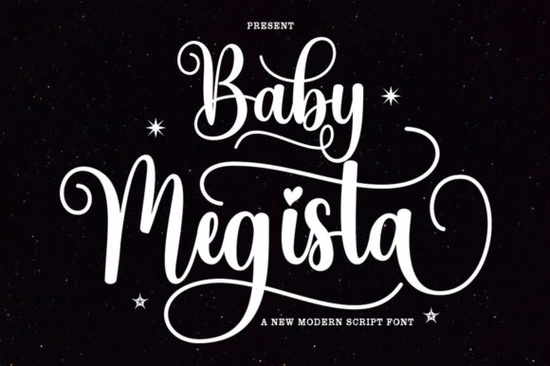
If you’re looking for a script font that feels both playful and polished, Baby Megista Font might be exactly what your next project needs. It’s got that hand-lettered charm with just enough sparkle to stand out whether you’re designing baby shower invites, custom nursery art, or branding for a small handmade business. The curves are smooth, the details are crisp, and it comes packed with extra glyphs and swashes that are easy to access thanks to PUA encoding.
One of the biggest perks of Baby Megista is how versatile it is. You don’t need to be a pro designer to make it look good pair it with something clean like Kids Sketch Hand for contrast, or let it shine solo on a simple tote bag or greeting card. Because it’s PUA encoded, all those fancy alternate letters and decorative tails show up right in your design software without needing extra plugins or font managers. That’s a real time-saver when you’re juggling multiple orders or rushing to meet a deadline.
It also scales nicely. Whether you’re printing tiny stickers or big wall decals, the strokes hold up without getting muddy. And if you’ve ever struggled with script fonts that feel too stiff or overly formal, this one has a relaxed rhythm that still feels intentional. Think of it as the font version of a handwritten note from a friend warm, personal, but still put-together.
If you’ve used Make A Note before, you’ll notice Baby Megista has a slightly bolder presence great for headlines or logos where you want to grab attention. It’s not as loose or sketchy as Catheline Pretty Meow, which leans into whimsy, but it’s far from corporate. It lands right in that sweet spot between casual and elegant.
For those who love boho aesthetics, pairing it with Boho Style as a secondary font creates nice visual texture one for headers, one for body text. Or if you’re working on family-themed projects, try mixing it with Dad Collections to balance softness with structure. The key is letting Baby Megista lead as the eye-catching element while keeping supporting fonts minimal.
One thing to note: because it’s a script font with connected letters, test your kerning carefully. Some word combinations might need manual spacing tweaks to avoid awkward overlaps especially in longer phrases. But that’s true of most display scripts, not just this one.
- Baby-related designs shower invites, milestone cards, onesies, nursery prints
- Small business branding boutique logos, café menus, handmade product labels
- Social media graphics quotes, announcements, seasonal promotions
- Personalized gifts mugs, keychains, tote bags with names or short messages
It’s less ideal for long paragraphs or body text save it for headlines, titles, or accent words. And while it’s gender-neutral in style, its soft curves naturally lean toward feminine or child-friendly themes unless paired with more structured fonts to balance it out.
- Use the swashes sparingly. They’re gorgeous, but too many can clutter your design. Pick one or two key letters to embellish.
- Try it in all caps. Surprisingly, it holds up well gives a bolder, more modern vibe.
- Layer with textures. Watercolor backgrounds, subtle grain, or kraft paper tones make it feel even more handmade.